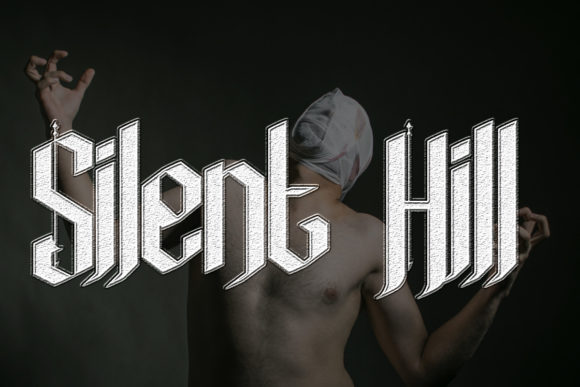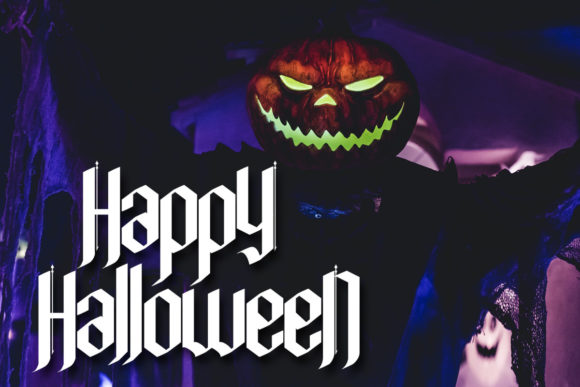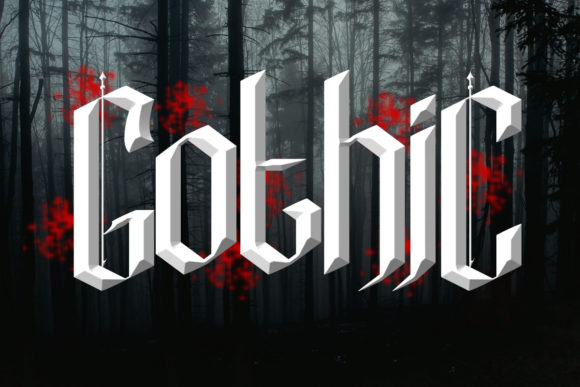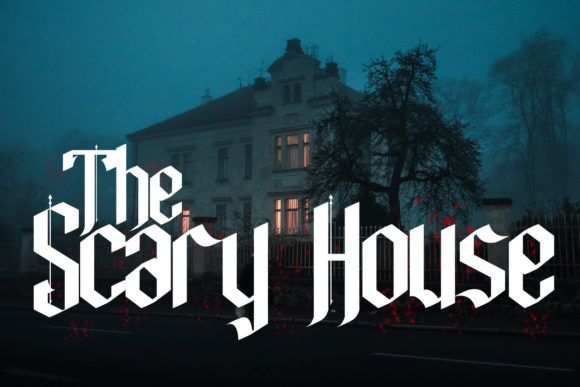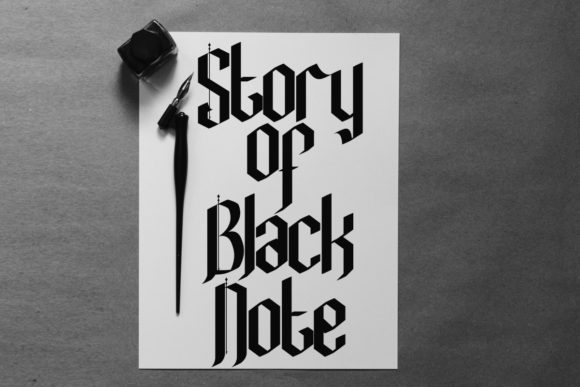
Introducing AbigaiL1980s: The Ultimate Blackletter Font for Your Design Projects
In the world of typography, blackletter fonts have always been a popular choice for designers looking to add a touch of elegance and sophistication to their projects. One such font that has been making waves in the design community is AbigaiL1980s, a unique blackletter font that is perfect for a wide range of design applications. In this article, we’ll take a closer look at AbigaiL1980s and explore its features, benefits, and uses.
What is AbigaiL1980s?
AbigaiL1980s is a blackletter font that is inspired by the classic typography of the 1980s. It features intricate and ornate lettering with a distinctive Gothic flair, making it perfect for designers who want to add a touch of drama and flair to their projects. The font is designed to be highly versatile, making it suitable for a wide range of design applications, from display usage to tattoos, logos, posters, magazines, books, and more.
Key Features of AbigaiL1980s
So, what makes AbigaiL1980s such a unique and valuable font for designers? Here are some of its key features:
- Unique Blackletter Style: AbigaiL1980s features a distinctive blackletter style that is both elegant and dramatic. The font’s intricate lettering and ornate details make it perfect for designers who want to add a touch of sophistication to their projects.
- Highly Versatile: AbigaiL1980s is designed to be highly versatile, making it suitable for a wide range of design applications. Whether you’re creating a logo, poster, magazine, or book, this font is sure to make your project stand out.
- Perfect for Display Usage: AbigaiL1980s is optimized for display usage, making it perfect for headlines, titles, and other display text. The font’s bold and dramatic lettering is sure to grab attention and make your project stand out.
- Great for Tattoos and Body Art: AbigaiL1980s is also a great choice for tattoo artists and body art enthusiasts. The font’s intricate and ornate lettering makes it perfect for creating unique and eye-catching tattoos.
Benefits of Using AbigaiL1980s
So, why should you choose AbigaiL1980s for your design projects? Here are some of the benefits of using this unique blackletter font:
- Adds Elegance and Sophistication: AbigaiL1980s adds a touch of elegance and sophistication to any design project. The font’s intricate lettering and ornate details make it perfect for designers who want to create high-end designs.
- Stand Out from the Crowd: AbigaiL1980s is a unique and distinctive font that is sure to make your project stand out from the crowd. Whether you’re creating a logo, poster, or magazine, this font is sure to grab attention.
- Highly Versatile: AbigaiL1980s is a highly versatile font that can be used for a wide range of design applications. Whether you’re creating a display piece or a body art design, this font is sure to meet your needs.
How to Use AbigaiL1980s
AbigaiL1980s is easy to use and can be incorporated into a wide range of design projects. Here are some tips for using this unique blackletter font:
- Use for Display Text: AbigaiL1980s is optimized for display usage, making it perfect for headlines, titles, and other display text.
- Experiment with Different Sizes: AbigaiL1980s looks great in a variety of sizes, from small and delicate to large and bold. Experiment with different sizes to find the one that works best for your project.
- Pair with Other Fonts: AbigaiL1980s can be paired with other fonts to create a unique and eye-catching design. Try pairing it with a sans-serif font for a bold and modern look.
| Author | Al Mughni Studio3 |
In conclusion, AbigaiL1980s is a unique and versatile blackletter font that is perfect for a wide range of design applications. Its intricate and ornate lettering makes it perfect for designers who want to add a touch of elegance and sophistication to their projects. Whether you’re creating a logo, poster, magazine, or book, AbigaiL1980s is sure to make your project stand out. So why wait? Download AbigaiL1980s today and start creating stunning designs that will leave a lasting impression.